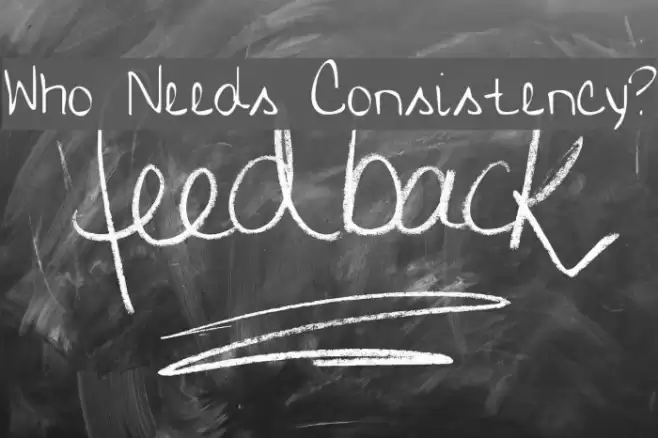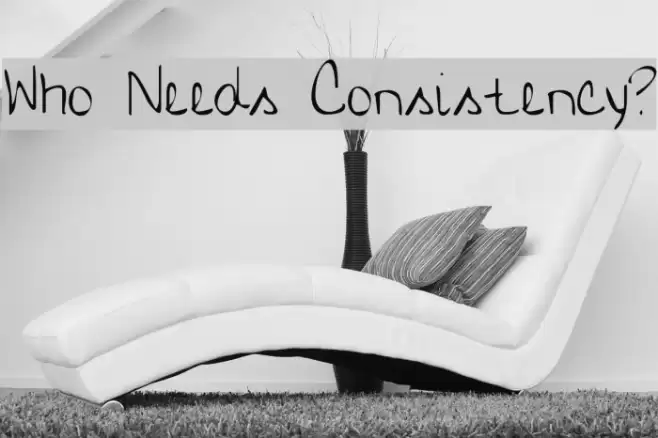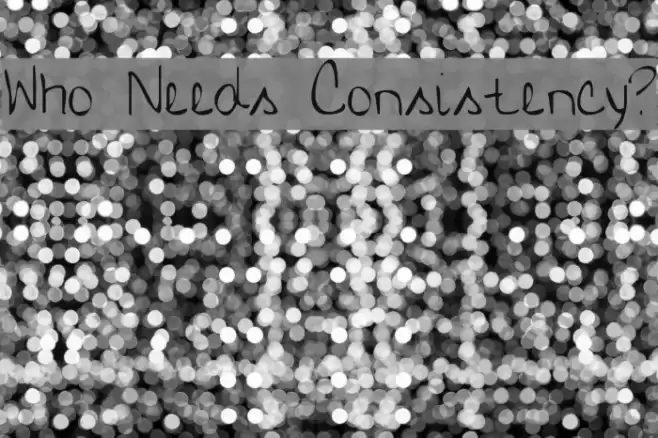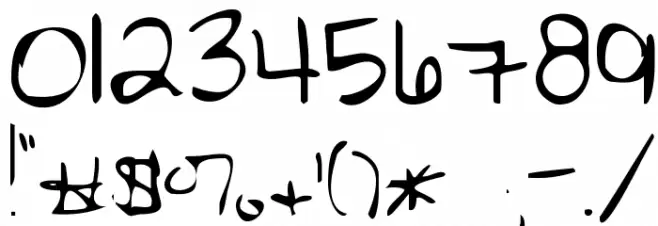
Who Needs Consistency? Font
Who Needs Consistency? Description
This font features a playful and whimsical handwritten style, characterized by its irregular and flowing letterforms. Each character exhibits a unique personality, with varying heights and slants that contribute to its informal and casual appearance. The strokes are smooth and fluid, creating a sense of movement and spontaneity. The font includes both uppercase and lowercase letters, numbers, and a variety of special characters, making it versatile for creative projects. Its distinctiveness lies in the quirky and dynamic shapes of the letters, which evoke a sense of creativity and individuality.
A playful, whimsical handwritten font with irregular, flowing letterforms from Uncategorized fonts.
- Proposed Projects: Ideal for greeting cards, children's books, creative posters, and personal branding.
- Use Case: Logos, Headlines, Creative projects